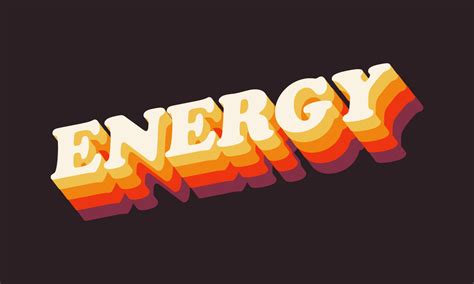
Cooper Black Font: The Complete Guide
Hey guys! Ever stumbled upon a font so retro and bold it just screams the 1970s? Chances are, you’ve met Cooper Black! This font is like that one friend who always makes a statement, whether they mean to or not. In this guide, we’re diving deep into everything Cooper Black – its history, why it’s so darn popular, and how you can use it to jazz up your own projects. Let’s get started!
What is Cooper Black?
Cooper Black is a typeface designed by Oswald Bruce Cooper in 1921 and released by the Barnhart Brothers & Spindler type foundry in 1922. It is an extra-bold weight of the Cooper Old Style typeface. Known for its heavy, rounded serifs and uniquely slanted letterforms, Cooper Black exudes a warm, friendly, and somewhat retro vibe. This makes it instantly recognizable and widely used in various design applications.
History and Origin
The story of Cooper Black begins with Oswald Bruce Cooper, an American type designer, lettering artist, and graphic designer. Cooper was a prominent figure in the early 20th-century American design scene. He aimed to create a typeface that was both legible and attention-grabbing. His initial design, Cooper Old Style, was well-received, but it was Cooper Black that truly made waves. Released in 1922, it quickly gained popularity due to its distinctive appearance and suitability for advertising and display purposes. Its success led to the creation of several variants and adaptations, solidifying its place in typographic history. From the get-go, Cooper Black was destined for greatness, quickly becoming a staple in print shops and design studios across the nation.
Key Characteristics
What makes Cooper Black so special? Well, a few things: First off, it’s incredibly bold . Like, really bold . The thick strokes give it a strong presence, making it perfect for headlines and titles. Then there are the rounded serifs – those little feet at the end of the letters. They add a touch of softness and friendliness to the font, which keeps it from feeling too aggressive. And let’s not forget the slight slant to the letters. It’s subtle, but it gives the font a sense of movement and energy. These elements combine to create a typeface that’s both eye-catching and approachable. It’s this unique combination of boldness, roundness, and slight slant that sets Cooper Black apart from other fonts. These characteristics make it not just a font, but a statement.
Popularity and Usage
Why has Cooper Black remained so popular for so long? Its versatility plays a huge role. It works well in a variety of contexts, from vintage-inspired designs to modern projects that need a touch of retro flair. Think album covers, posters, logos, and even packaging. Plus, its distinctive look helps it stand out from the crowd. In its heyday, Cooper Black was everywhere . From advertisements to signage, its bold, friendly appearance was a hit with designers and the public alike. Today, it enjoys a resurgence in popularity, thanks to the growing interest in retro design and vintage aesthetics. Its ability to evoke nostalgia while still feeling fresh and relevant ensures its continued use in contemporary design projects. That’s why you’ll often see it used to evoke a sense of nostalgia or to add a playful touch to a design. Its enduring appeal is a testament to its timeless design.
How to Use Cooper Black Effectively
Alright, you’ve got Cooper Black installed and ready to go. But how do you actually use it effectively? Here are some tips and tricks to make the most of this iconic font.
Best Use Cases
Cooper Black shines in situations where you want to make a bold statement. It’s perfect for headlines, posters, and logos that need to grab attention. It also works well in vintage-inspired designs, adding a touch of nostalgia and retro charm. Think about using it for event flyers, album covers, or even packaging design. Its friendly, approachable vibe makes it a great choice for projects that need a touch of personality. It’s ideal for headlines, posters, and logos that need to stand out. Its retro vibe also makes it great for vintage-inspired designs and adding a touch of personality.
Font Pairing Suggestions
Pairing Cooper Black with the right font can take your design to the next level. Since Cooper Black is so bold and distinctive, it’s best to pair it with a simpler, more neutral font. Some good options include:
• Open Sans: A clean, modern sans-serif font that provides a nice contrast to Cooper Black’s retro vibe.
• Roboto: Another versatile sans-serif font that works well in a variety of contexts.
• Lato: A stylish sans-serif font with a slightly rounded feel, which complements Cooper Black’s curves.
• Montserrat: A geometric sans-serif that offers a contemporary contrast.
The key is to choose a font that doesn’t compete with Cooper Black but instead complements it. Look for fonts that are easy to read and have a clean, simple design. This will help balance out Cooper Black’s boldness and create a harmonious overall look. These pairings help balance Cooper Black’s boldness and create a visually appealing design. Experiment to find the perfect combination for your project!
Common Mistakes to Avoid
While Cooper Black is a fantastic font, it’s easy to misuse it if you’re not careful. Here are some common mistakes to avoid:
• Overusing it: Cooper Black is best used sparingly. Too much of it can be overwhelming and make your design look cluttered.
• Using it for body text: Its heavy weight makes it difficult to read in large blocks of text. Stick to using it for headlines and titles.
• Stretching or distorting it: Altering the font’s original proportions can make it look awkward and unprofessional. Always use it as is.
• Ignoring kerning: Pay attention to the spacing between letters to ensure that the font looks balanced and legible.
These are just a few things to keep in mind when using Cooper Black. By avoiding these common mistakes, you can ensure that your designs look polished and professional. Using it sparingly, avoiding it for body text, and respecting its original proportions are key to making the most of this iconic font.
Cooper Black in Modern Design
Even though Cooper Black is a vintage font, it still has a place in modern design. In fact, it’s experiencing a resurgence in popularity, thanks to the growing interest in retro aesthetics. Designers are finding new and creative ways to incorporate Cooper Black into their projects, from branding to web design.
Examples of Contemporary Use
You’ll find Cooper Black popping up in all sorts of unexpected places these days. It’s being used in website headers, app interfaces, and even social media graphics. Some brands are using it to create a sense of nostalgia, while others are using it to add a playful touch to their designs. The key is to use it in a way that feels fresh and modern, rather than relying on tired clichés. Brands are using it to evoke nostalgia or add a playful element to their designs. Its versatility allows it to be adapted to various modern contexts.
Tips for Incorporating it into Current Projects
If you’re thinking about using Cooper Black in your next project, here are a few tips to keep in mind:
• Use it sparingly: A little goes a long way. Focus on using it for key elements, like headlines and logos.
• Pair it with modern fonts: Combining Cooper Black with a clean, sans-serif font can create a striking contrast.
• Experiment with color: Don’t be afraid to play with color to give Cooper Black a fresh, modern look.
• Consider using it in unexpected ways: Think about using it for small accents or graphic elements, rather than just headlines.
By following these tips, you can incorporate Cooper Black into your designs in a way that feels both retro and contemporary . It’s all about finding the right balance and using it in a way that complements your overall design aesthetic. Experiment with color and unexpected uses to give Cooper Black a modern twist.
So, there you have it – a complete guide to Cooper Black! From its history and characteristics to its modern-day applications, this font is a true icon of graphic design. Whether you’re a seasoned designer or just starting out, Cooper Black is a valuable addition to your font library. So go ahead, download it, experiment with it, and see what you can create! With its bold, friendly vibe and timeless appeal, Cooper Black is sure to add a touch of personality to your next project. Its enduring appeal and versatility make it a valuable asset for any designer. Happy designing!